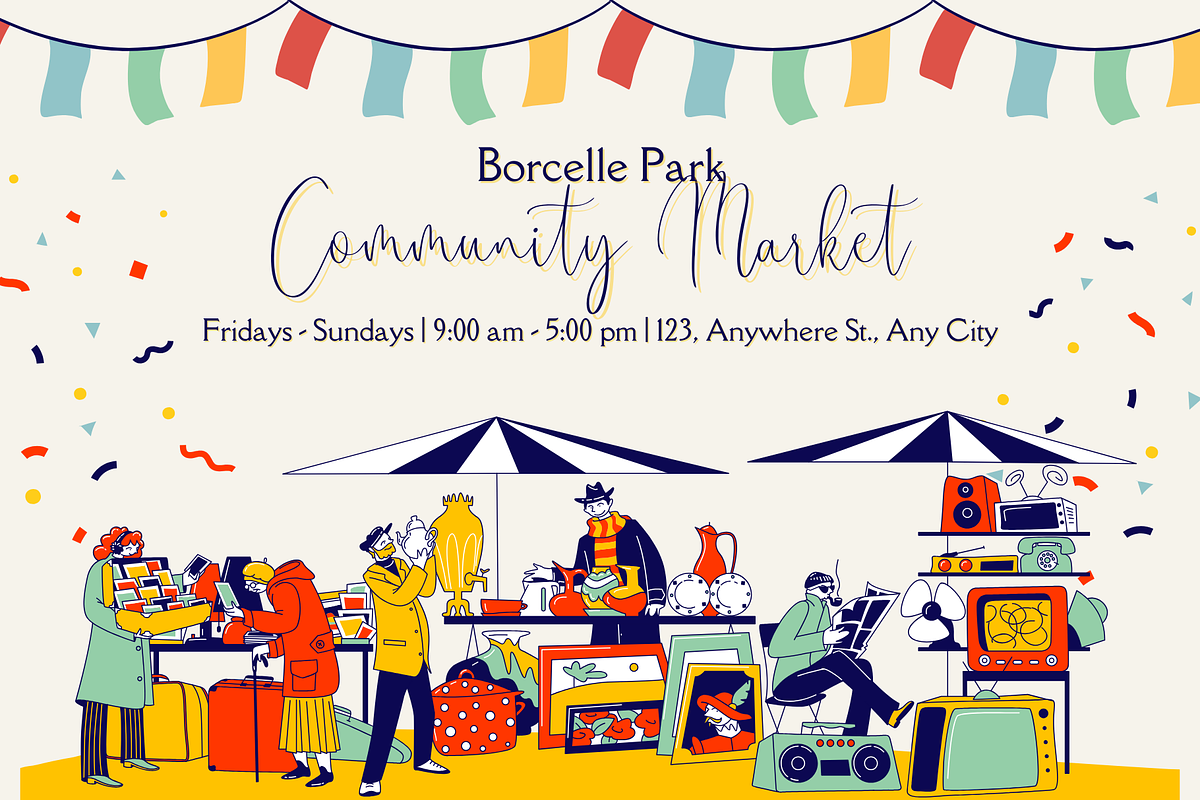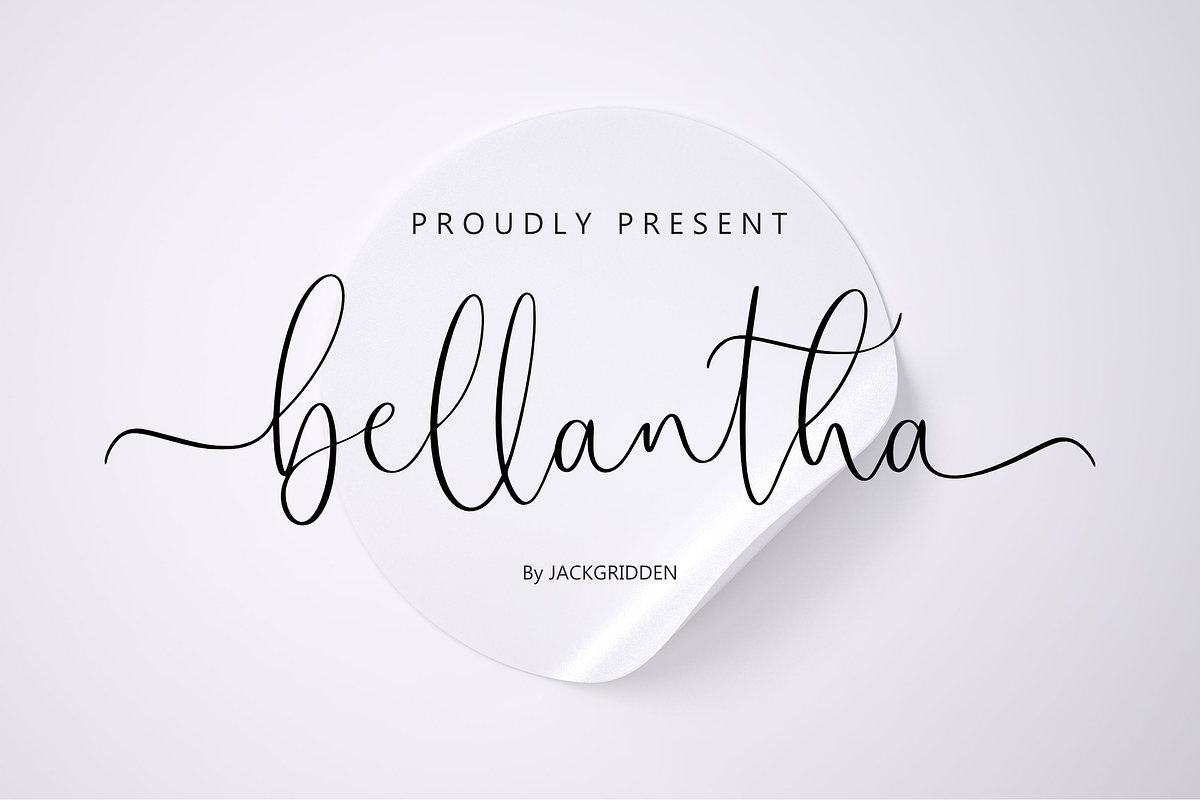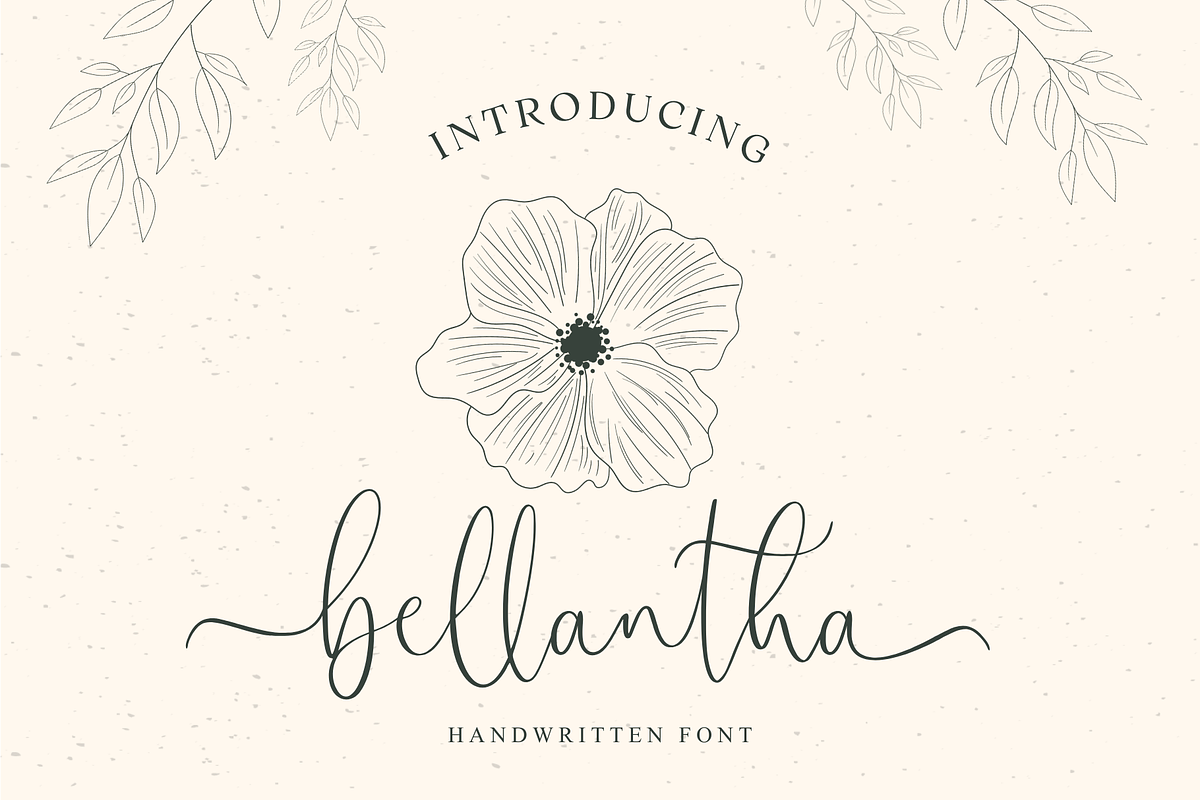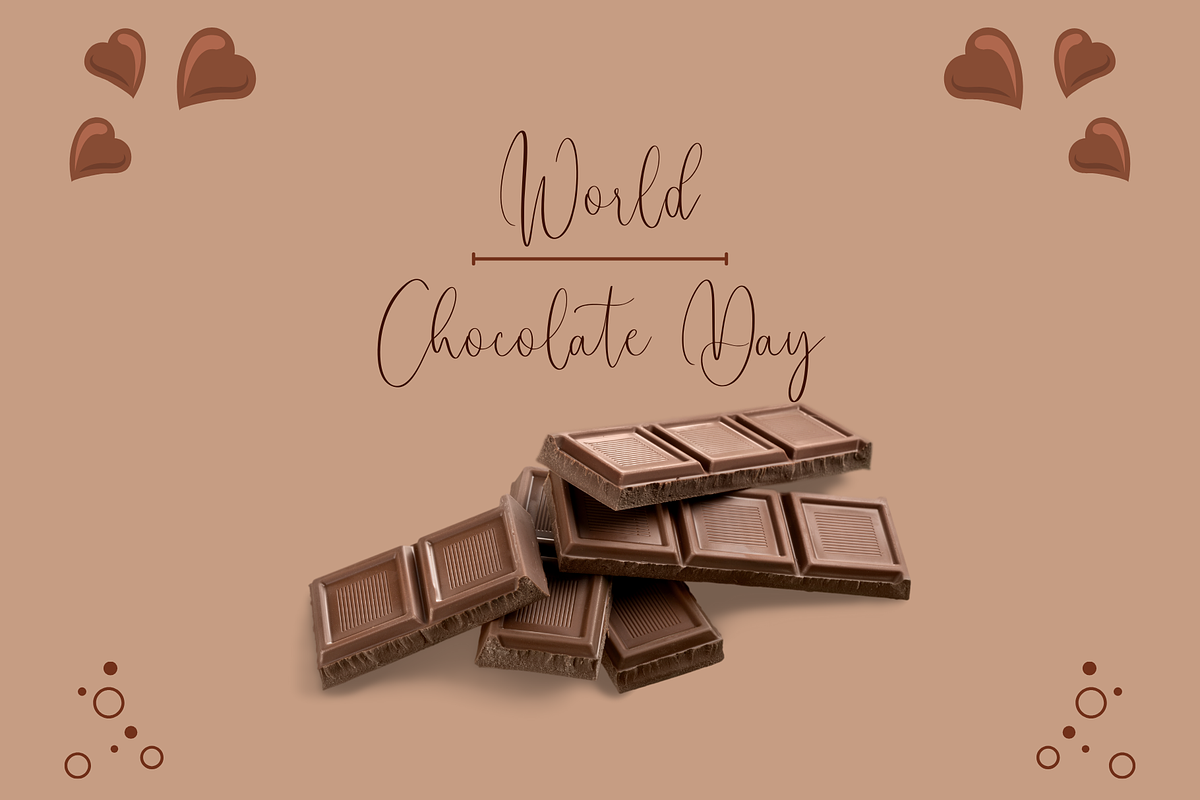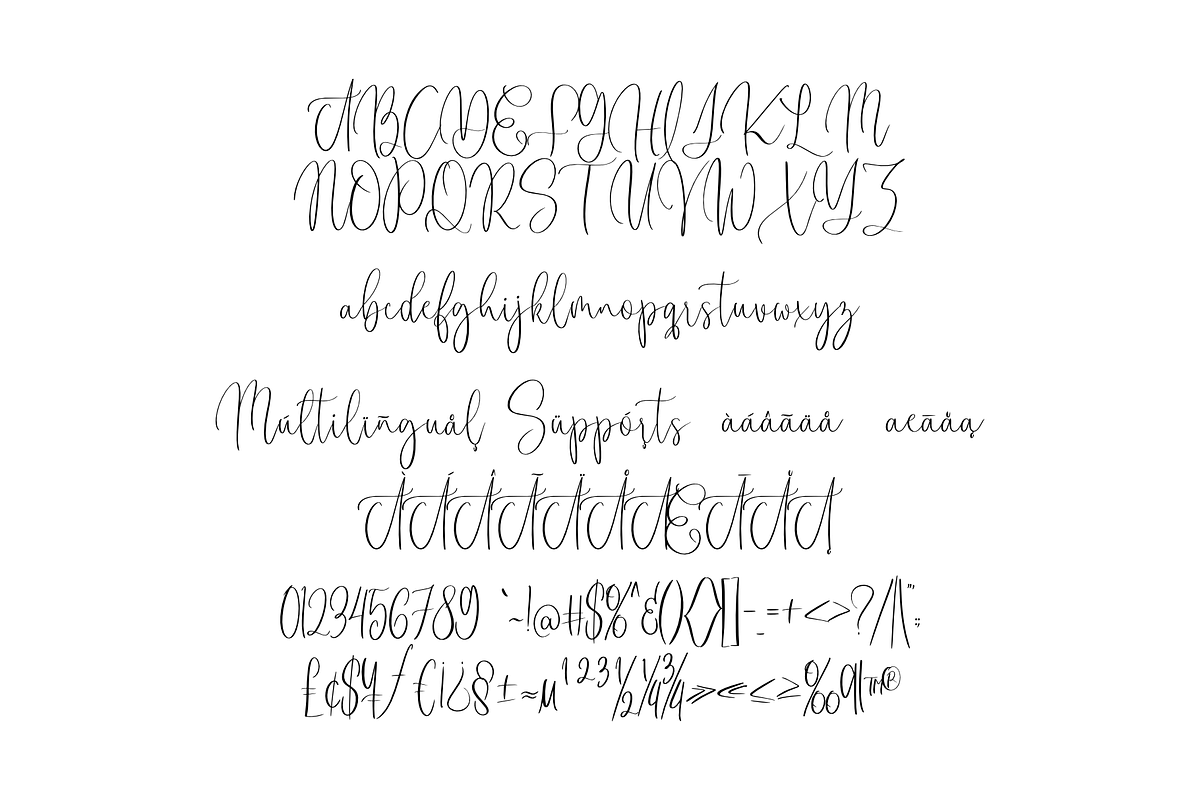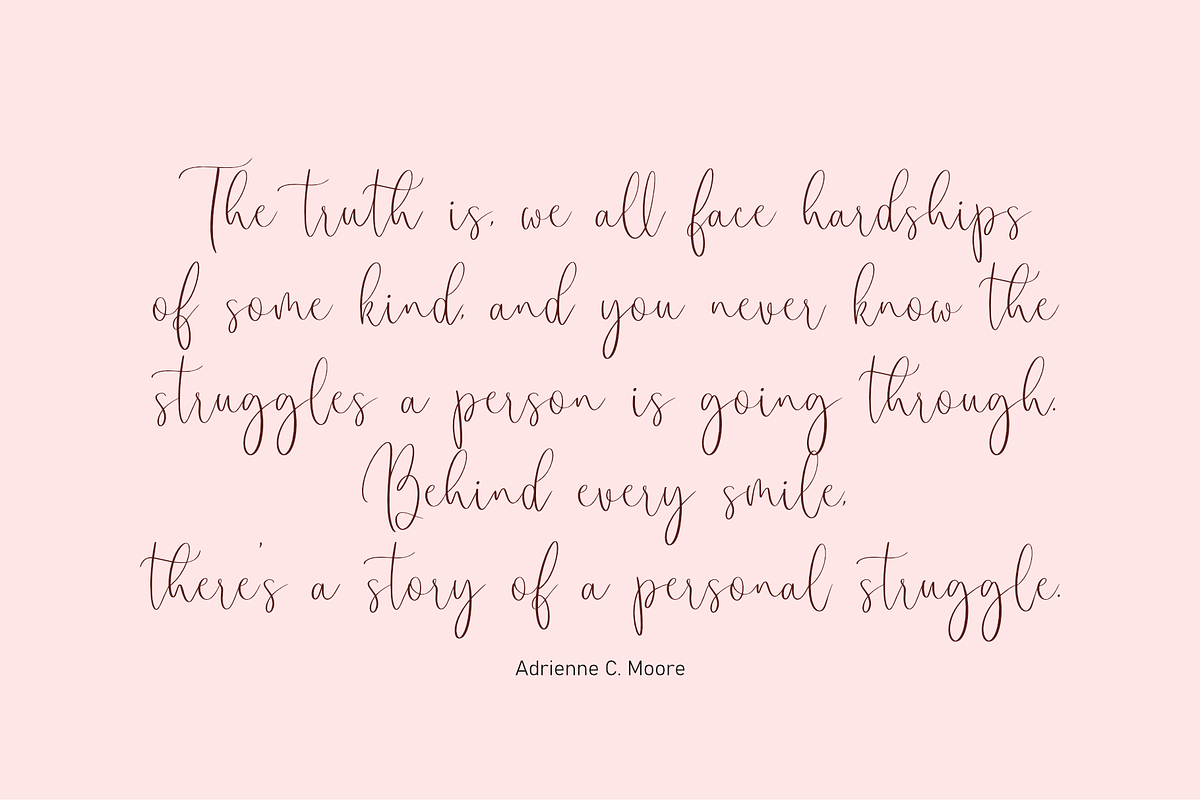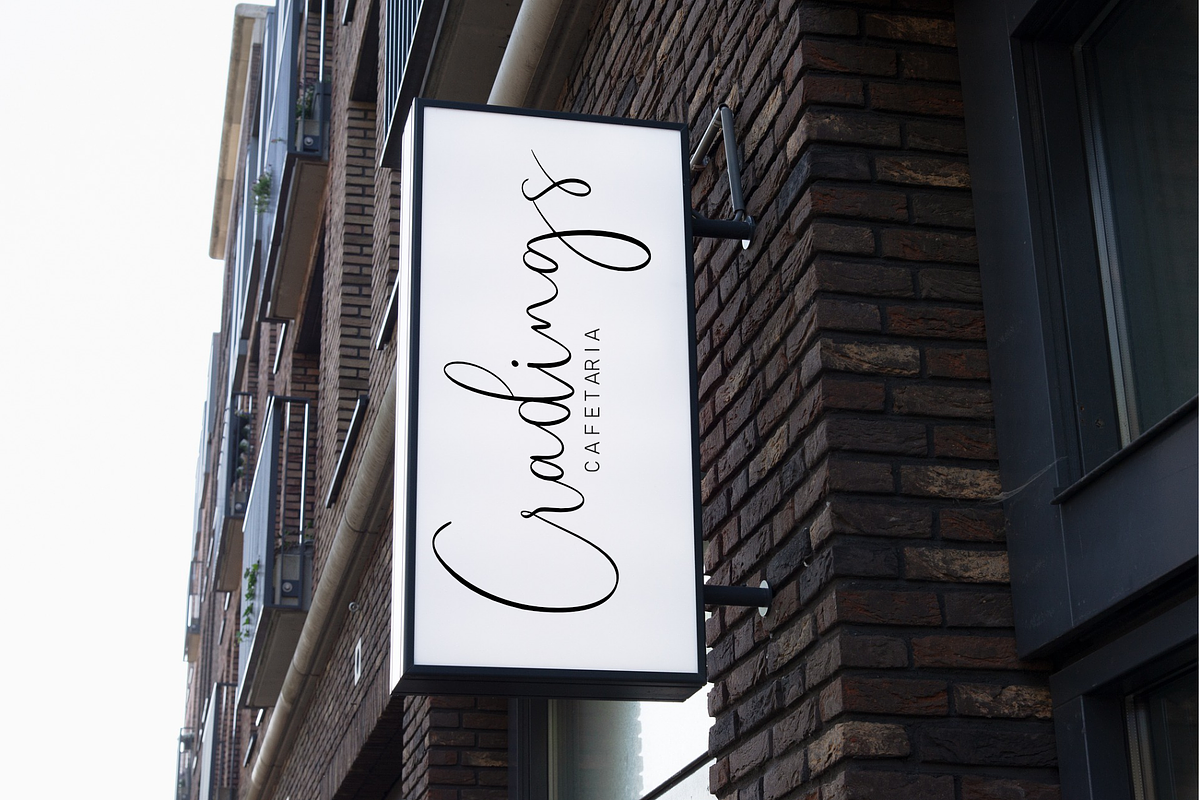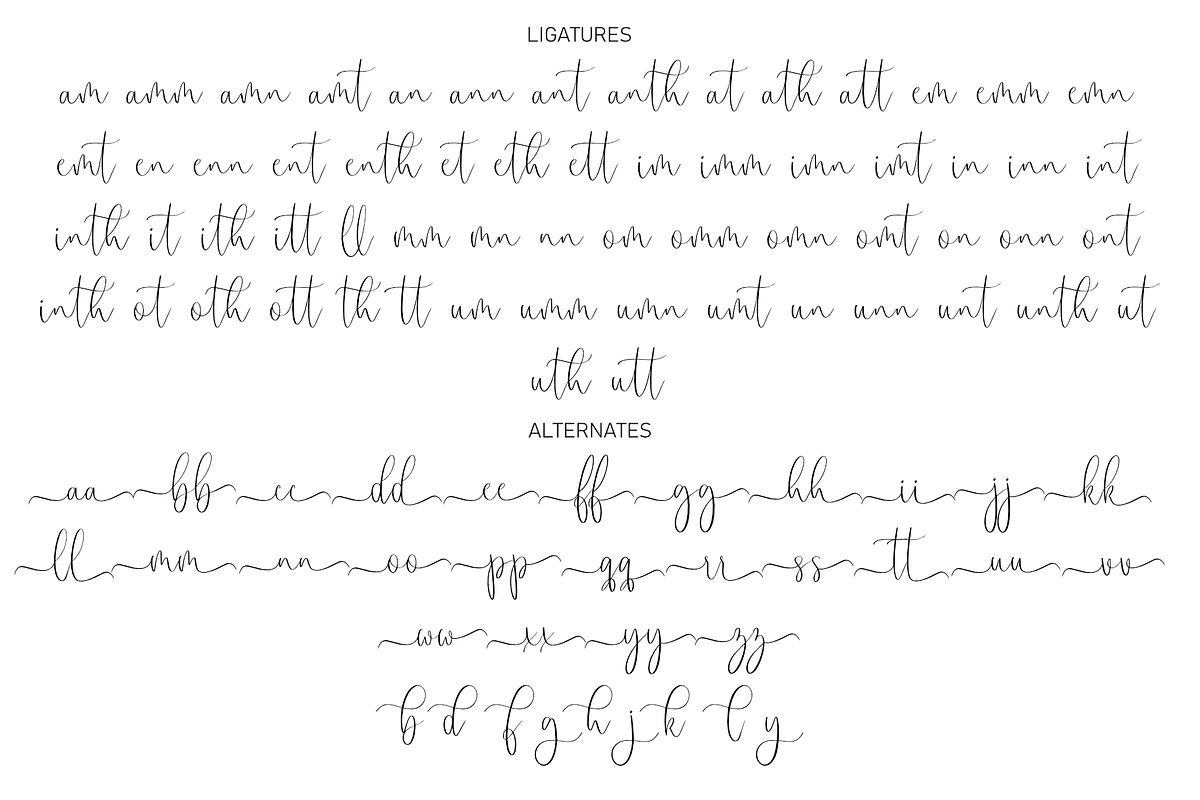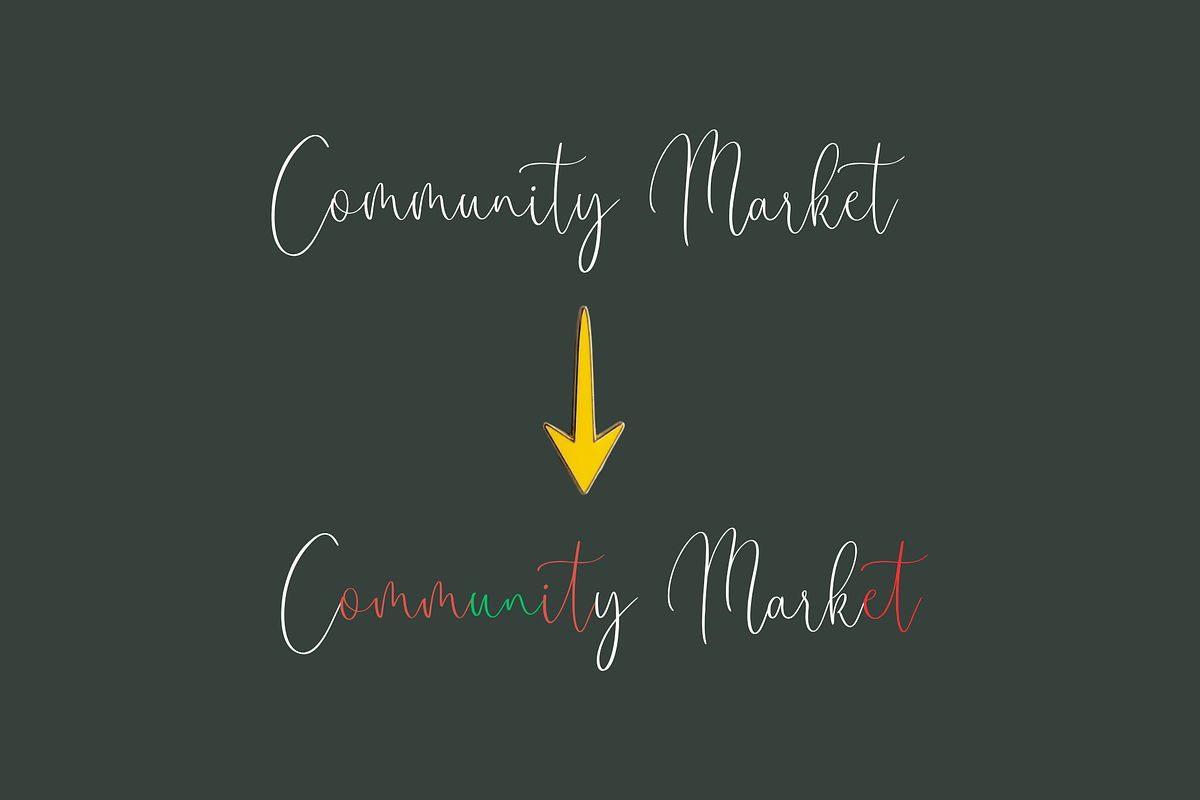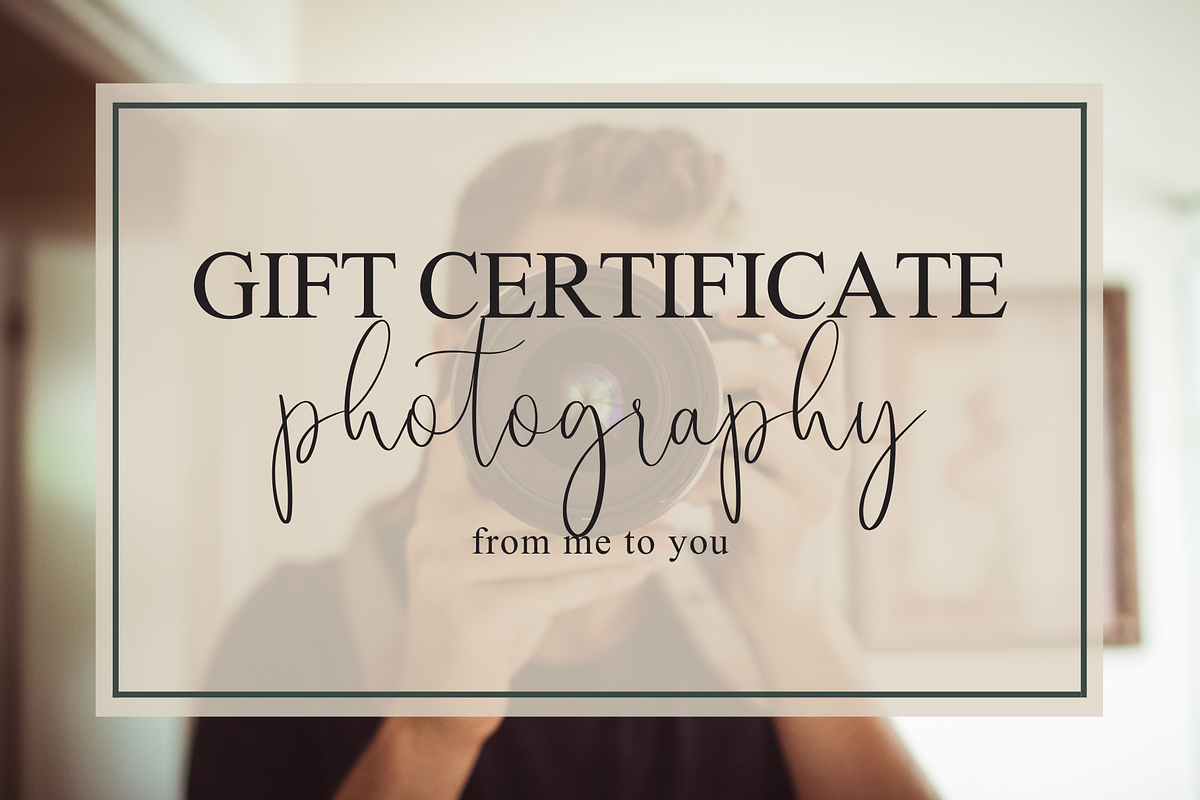
Bellantha
Bellantha is a beautifully crafted handwritten signature font that combines elegance and charm, making it perfect for a variety of creative projects. With its unique calligraphic flair, Bellantha features thoughtfully designed ligatures, ensuring a seamless flow in every word.
Ideal for logos, wedding stationery, and photographer watermarks, Bellantha adds a special touch to modern websites and branding materials. The font includes stunning beginning and end swashes for lowercase letters, allowing you to elevate your designs with an artistic and romantic feel.